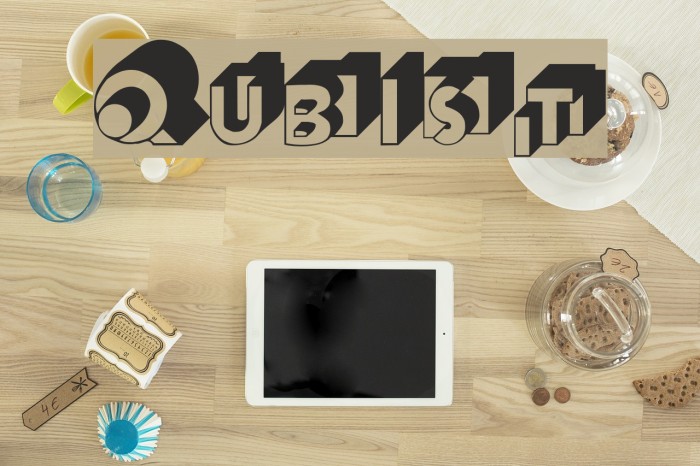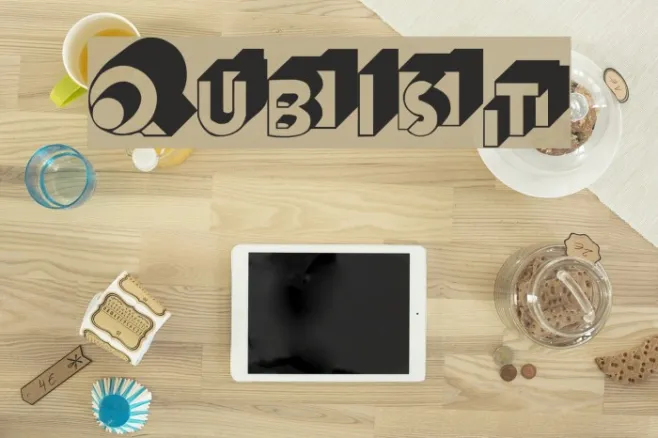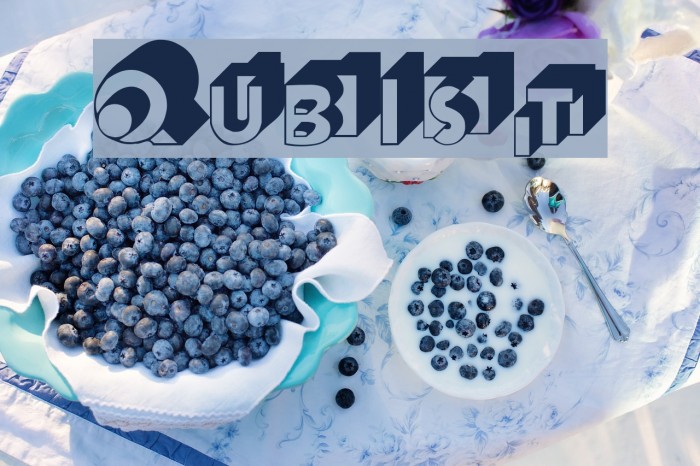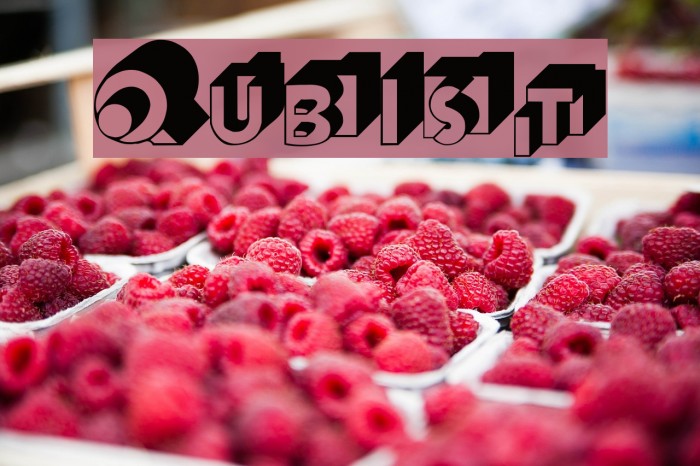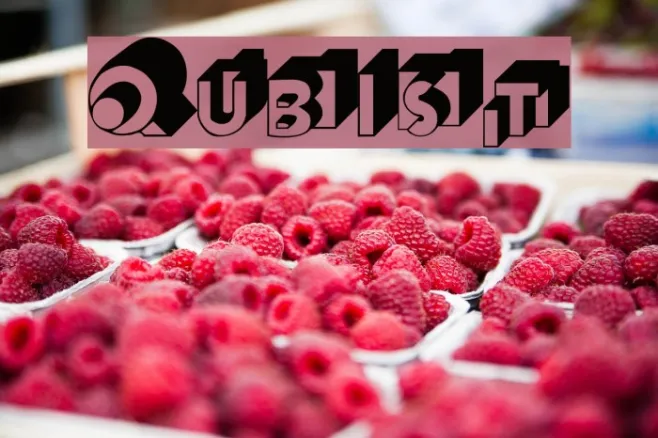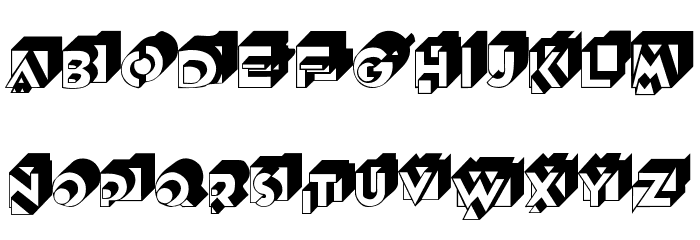
Qubist Font
Qubist Description
This font features a bold, geometric design with a three-dimensional effect, creating a sense of depth and movement. Each character is crafted with sharp angles and clean lines, giving it a modern and edgy appearance. The use of shadowing enhances the 3D illusion, making the letters appear as if they are popping off the page. The style is consistent across both uppercase and lowercase letters, maintaining a cohesive look. The font's unique aesthetic makes it stand out, perfect for projects that require a striking visual impact.
| Proposed Projects | Ideal for posters, album covers, video game titles, and branding that requires a modern, edgy feel. |